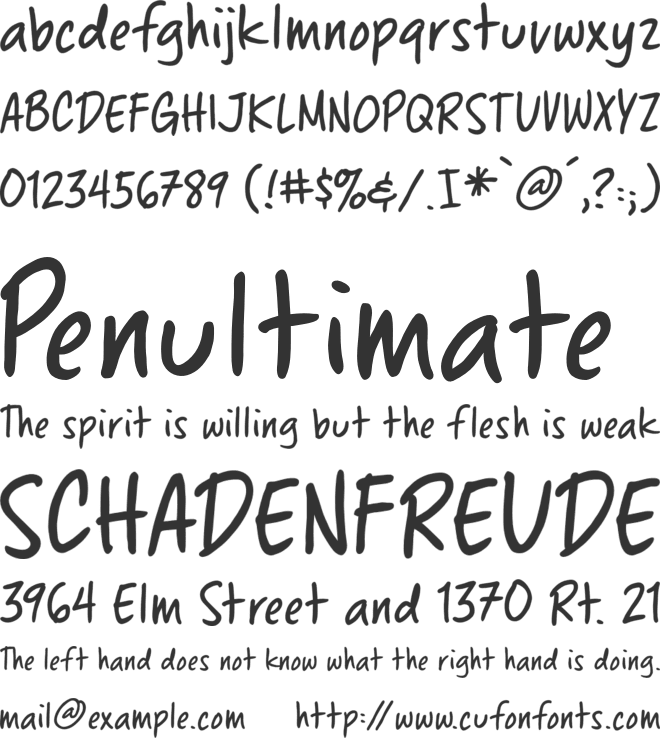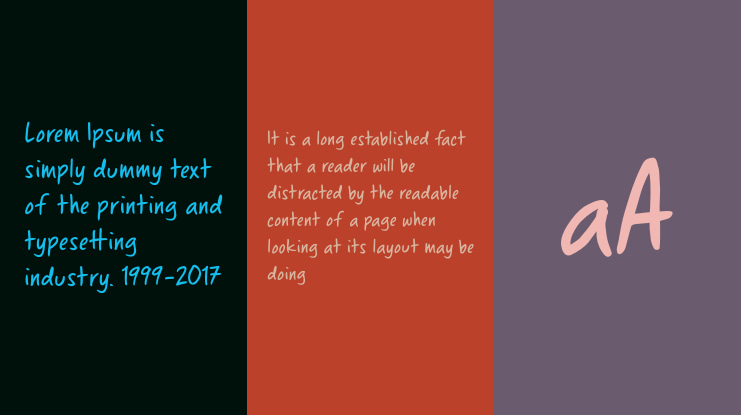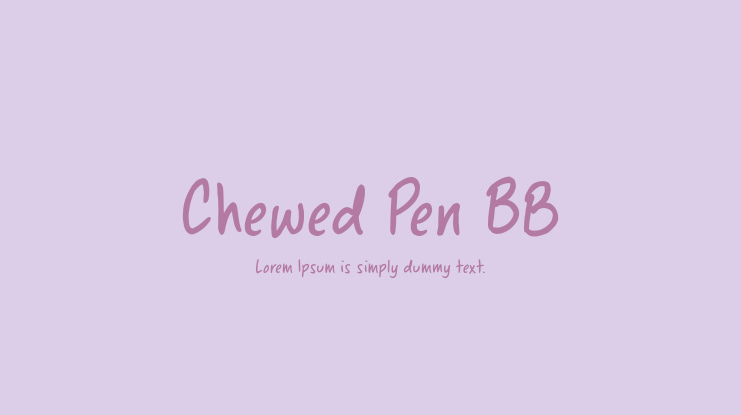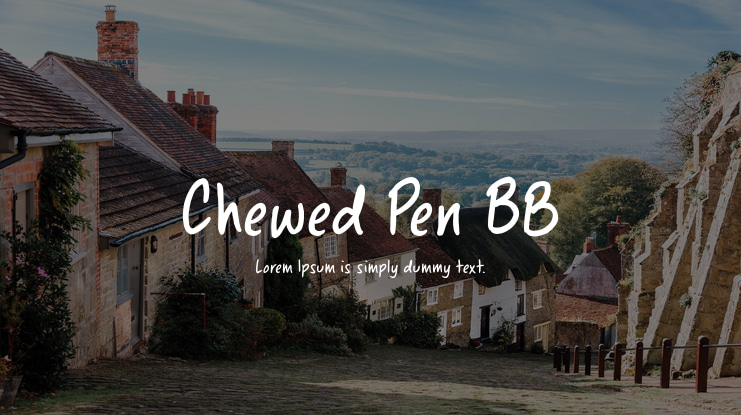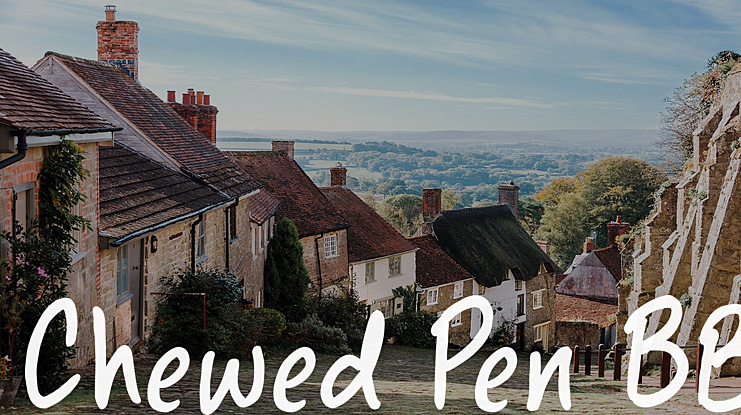
Chewed Pen BB Font Family
Nate Piekos
Chewed Pen BB was designed for journal-style captions. Perfect for those times when you need a legible, upper/lower "handwritten" font. It comes with Regular and Italic, and has opentype autoligatures that swap out side-by-side identical letters.